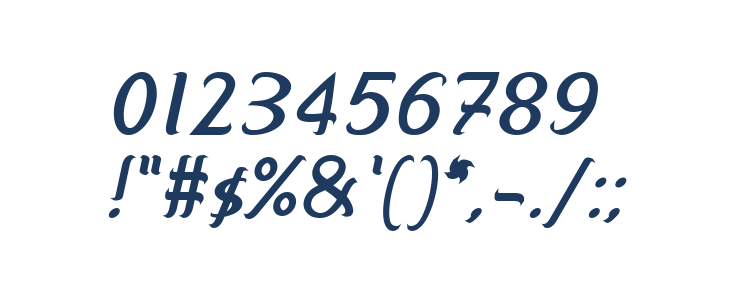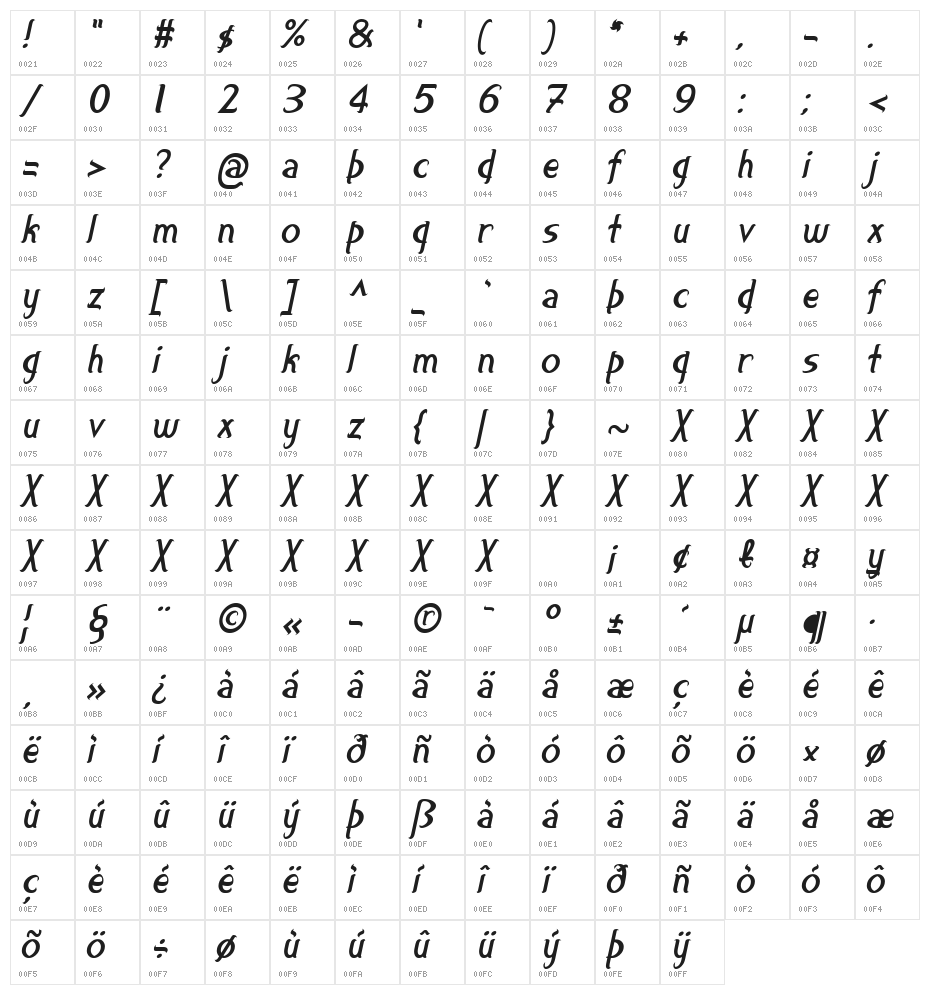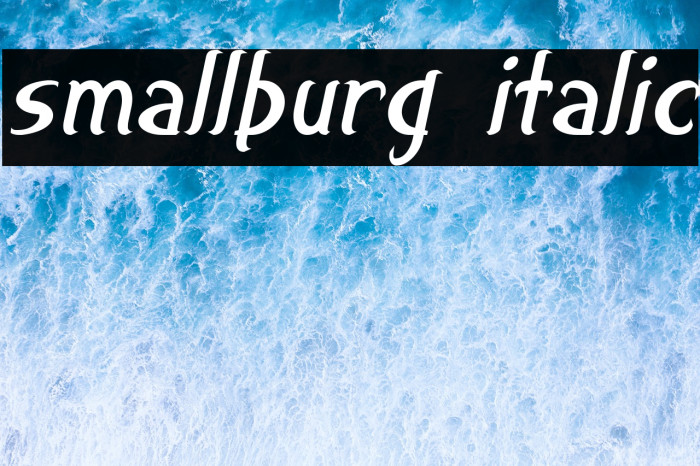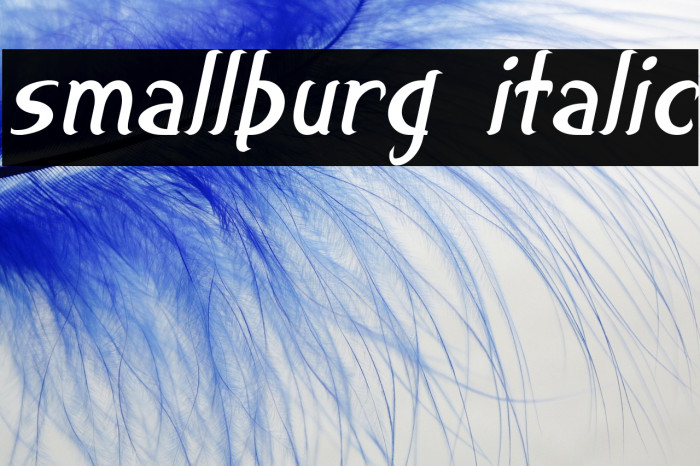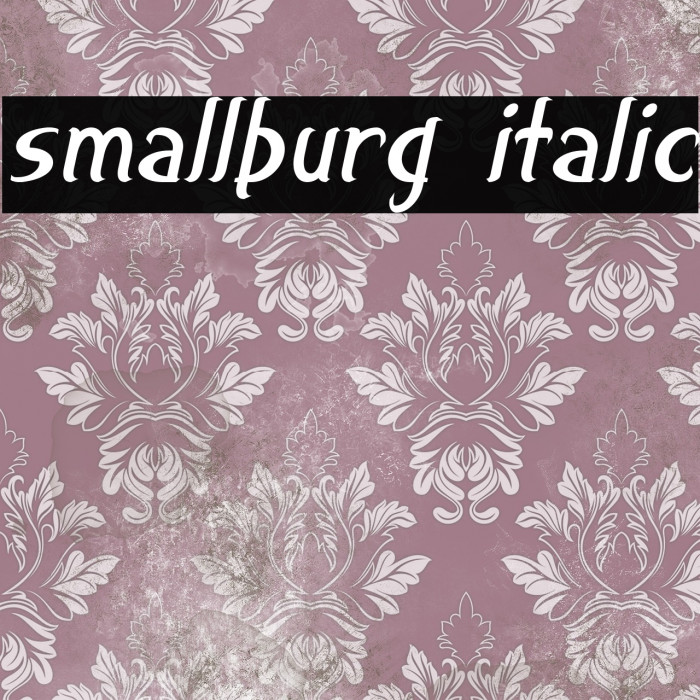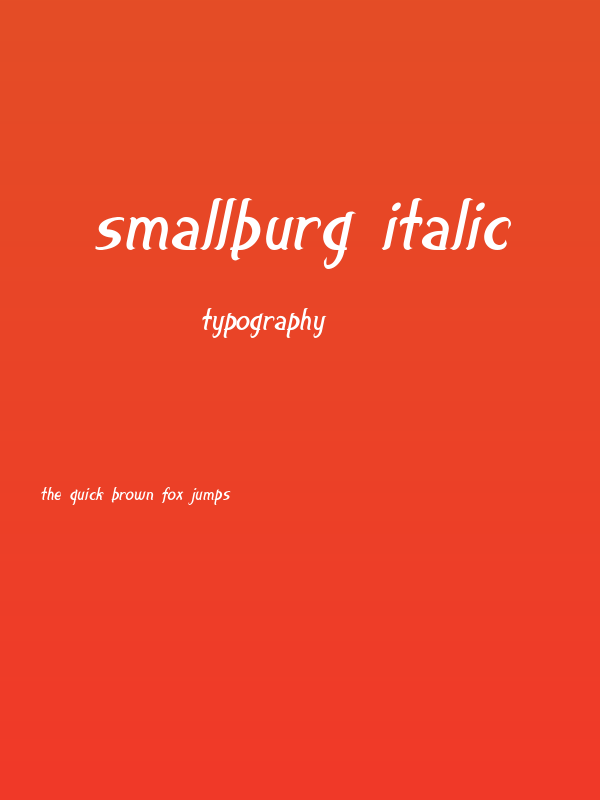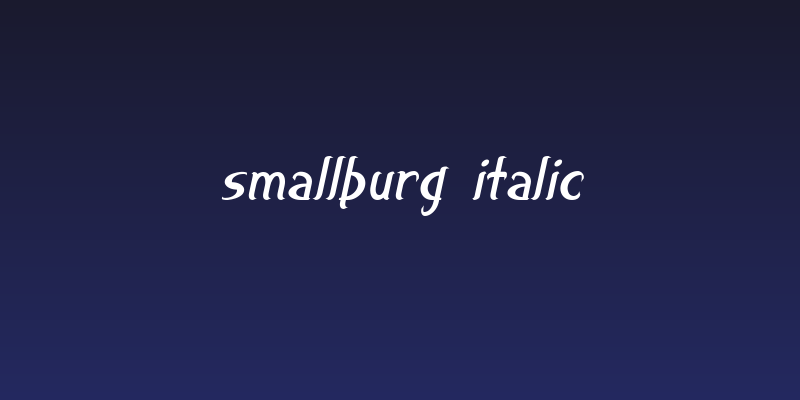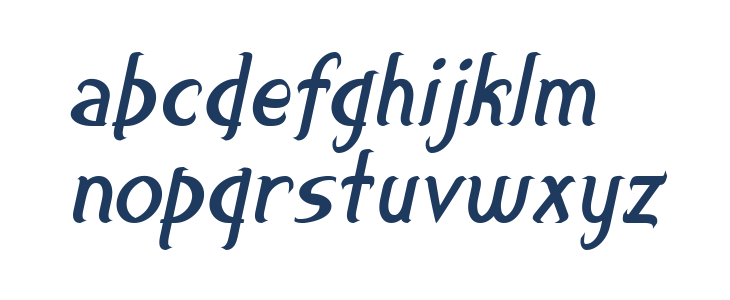
smallburg Italic Font
smallburg Italic Description
This font exhibits a dynamic and flowing style with a distinct italic slant, giving it a sense of motion and elegance. The characters are designed with smooth curves and a moderate contrast between thick and thin strokes, enhancing readability while maintaining a stylish appearance. The lowercase letters have a playful yet sophisticated look, with unique features like the looped descenders on letters such as 'g' and 'y'. The uppercase letters complement the lowercase with their graceful forms, making them suitable for both display and text purposes. The numerals are clear and consistent, ensuring they stand out in any context. Special characters are thoughtfully crafted to match the overall aesthetic, providing a cohesive look across all glyphs.
| Proposed Projects | Ideal for branding, invitations, editorial design, and any project requiring a touch of elegance and sophistication. |